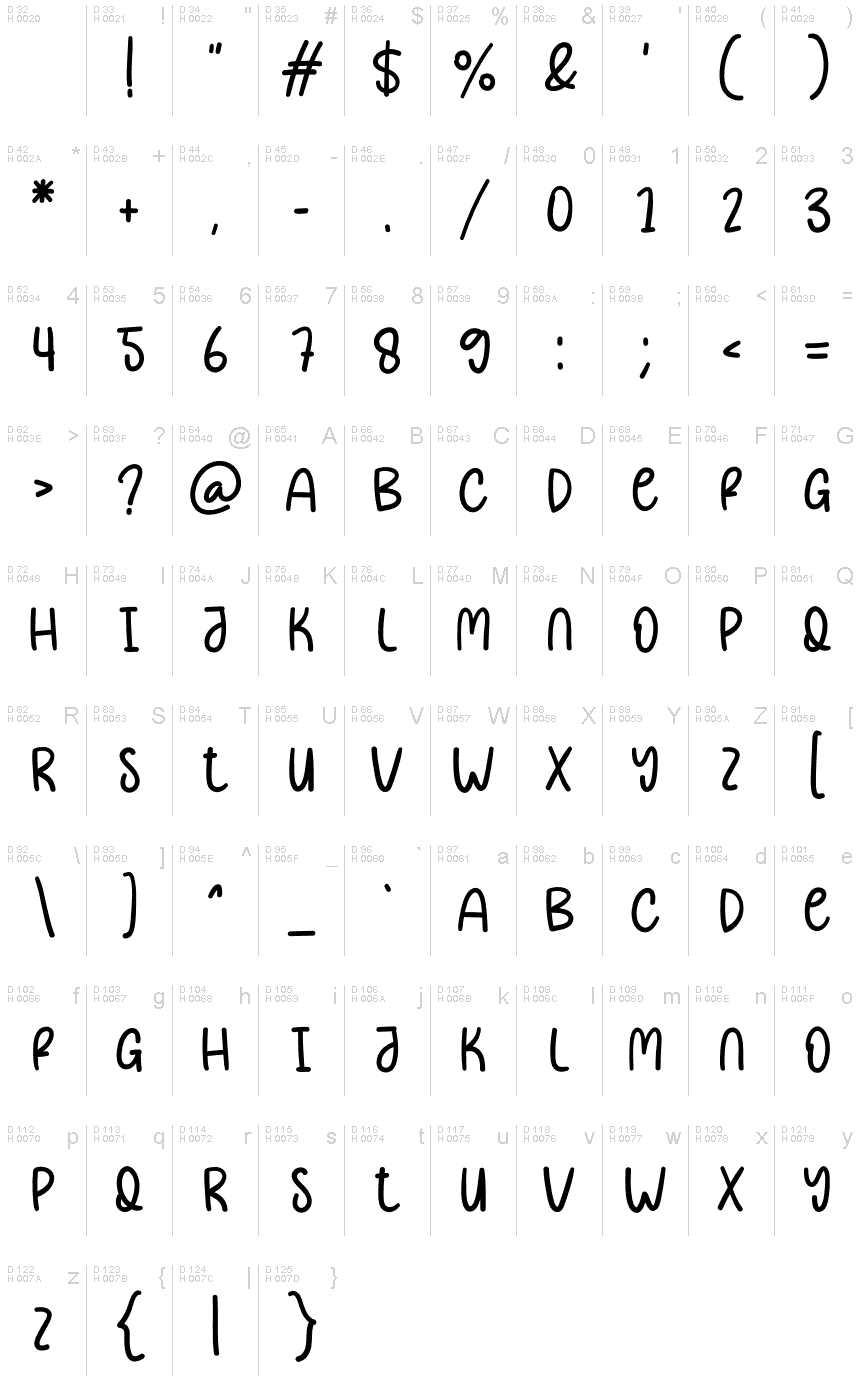
Small Child
Small Child, a delightful handwritten font by Scratchones, exudes an enchanting blend of innocence and playfulness. Its irregular, organic letterforms capture the essence of youthful whimsy, making it a perfect choice for projects that aim to evoke warmth and charm. The aesthetic appeal of Small Child lies in its naive simplicity-the kind reminiscent of a child's first attempts at writing.
This font's casual style brings an approachable and friendly touch to any design. It is particularly well-suited for children's books, playful branding materials, educational resources, or any creative work where a touch of humanity and personalization is desired. With Small Child, designers have access to a typeface that offers not just legibility but also the potential to infuse their projects with the heartfelt authenticity of a handwritten note.